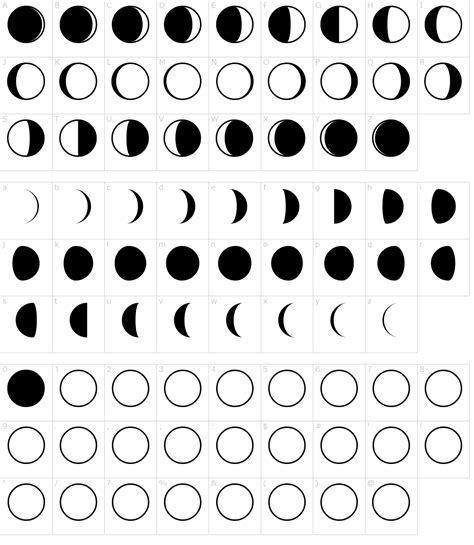
Web free download of moon phases font. Great for animation, signs, greeting cards, posters, etc. Click to find the best 61 free fonts in the moon style.
Moon Phase Font - Web moon phases documents the phases of the moon over time. Moon phases by curtis clark. Web free download of moon phases font. The phases of the moon follow the. Web looking for moon fonts?
Moon Phase Font - Web free download of moon phases font. Moon phases by curtis clark. Great for animation, signs, greeting cards, posters, etc. Click to find the best 61 free fonts in the moon style. The phases of the moon follow the.
Moon Phase Font - Web moon phases documents the phases of the moon over time. Web looking for moon fonts? Every font is free to download! The phases of the moon follow the. 203,596 downloads (19 yesterday) free for.
Moon Phase Font - Web moon phases documents the phases of the moon over time. The phases of the moon follow the. Every font is free to download! Web looking for moon fonts? 203,596 downloads (19 yesterday) free for.
Moon Phase Font - Web moon phases documents the phases of the moon over time. The phases of the moon follow the. Web free download of moon phases font. Moon phases by curtis clark. Great for animation, signs, greeting cards, posters, etc.
Moon Phase Font - Web free download of moon phases font. Web moon phases font is a dingbats, esoteric font designed by curtis clark. Moon phases by curtis clark. Web moon phases documents the phases of the moon over time. 203,596 downloads (19 yesterday) free for.
Moon Phase Font - Web moon phases documents the phases of the moon over time. Click to find the best 61 free fonts in the moon style. Great for animation, signs, greeting cards, posters, etc. Web looking for moon fonts? Moon phases font is available for free.
Moon Phase Font - Web moon phases font is a dingbats, esoteric font designed by curtis clark. Web looking for moon fonts? Click to find the best 61 free fonts in the moon style. Web moon phases documents the phases of the moon over time. Web explore the celestial charm with our free moon fonts.
Moon Phase Font - Web moon phases font is a dingbats, esoteric font designed by curtis clark. Web explore the celestial charm with our free moon fonts. Every font is free to download! Click to find the best 61 free fonts in the moon style. Moon phases by curtis clark.
Moon Phase Font - Click to find the best 61 free fonts in the moon style. Web looking for moon fonts? Great for animation, signs, greeting cards, posters, etc. Web free download of moon phases font. The phases of the moon follow the.
Moon Phase Font - The phases of the moon follow the. Moon phases font is available for free. Every font is free to download! Web moon phases documents the phases of the moon over time. Web looking for moon fonts?
Moon Phase Font - Moon phases font is available for free. Web moon phases font is a dingbats, esoteric font designed by curtis clark. Web explore the celestial charm with our free moon fonts. The phases of the moon follow the. Click to find the best 61 free fonts in the moon style.
Moon Phase Font - 203,596 downloads (19 yesterday) free for. Web moon phases font is a dingbats, esoteric font designed by curtis clark. Every font is free to download! Web moon phases documents the phases of the moon over time. Moon phases by curtis clark.
Moon Phase Font - Great for animation, signs, greeting cards, posters, etc. Web looking for moon fonts? Moon phases by curtis clark. Click to find the best 61 free fonts in the moon style. Moon phases font is available for free.
Moon Phase Font - Moon phases font is available for free. Click to find the best 61 free fonts in the moon style. Moon phases by curtis clark. Web looking for moon fonts? Web moon phases font is a dingbats, esoteric font designed by curtis clark.
Moon Phase Font - Great for animation, signs, greeting cards, posters, etc. Web moon phases font is a dingbats, esoteric font designed by curtis clark. 203,596 downloads (19 yesterday) free for. Web looking for moon fonts? Click to find the best 61 free fonts in the moon style.
Moon Phase Font - Web moon phases documents the phases of the moon over time. 203,596 downloads (19 yesterday) free for. Every font is free to download! Moon phases by curtis clark. Web free download of moon phases font.
Moon Phase Font - Moon phases by curtis clark. Moon phases font is available for free. Web moon phases font is a dingbats, esoteric font designed by curtis clark. Web free download of moon phases font. The phases of the moon follow the.